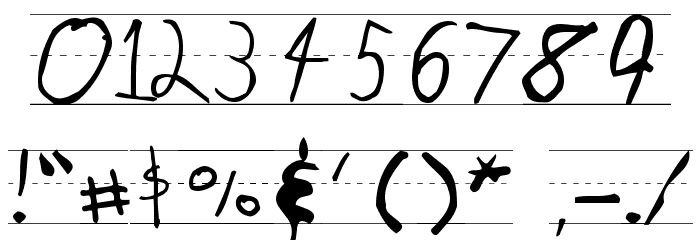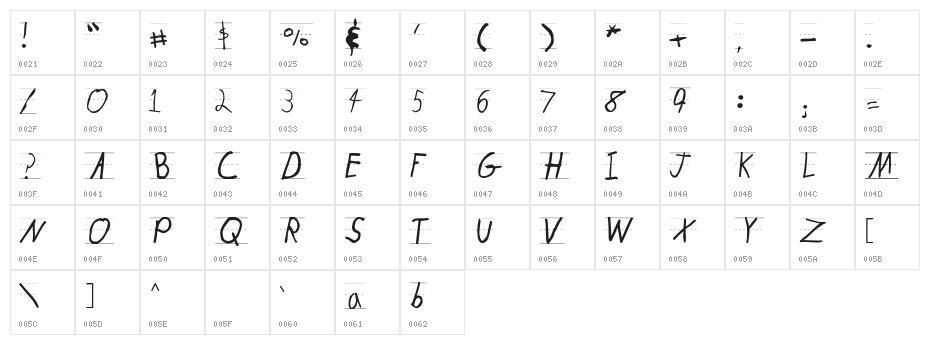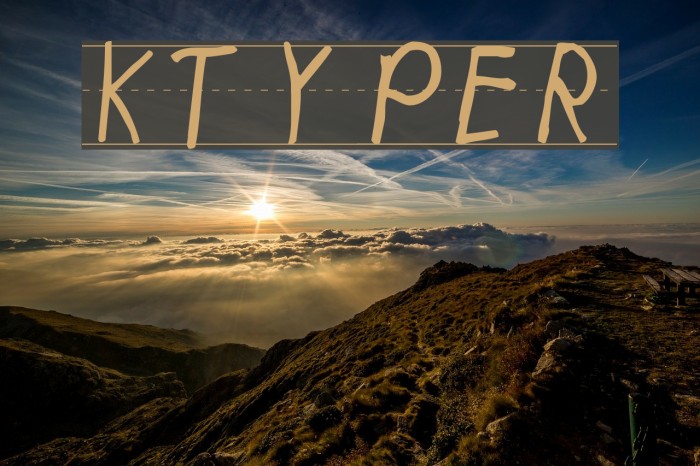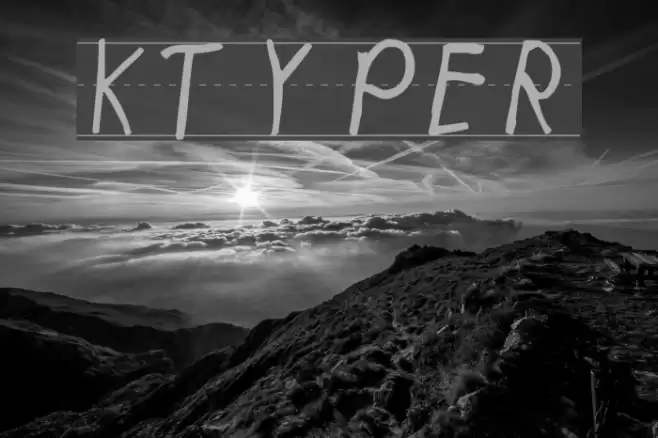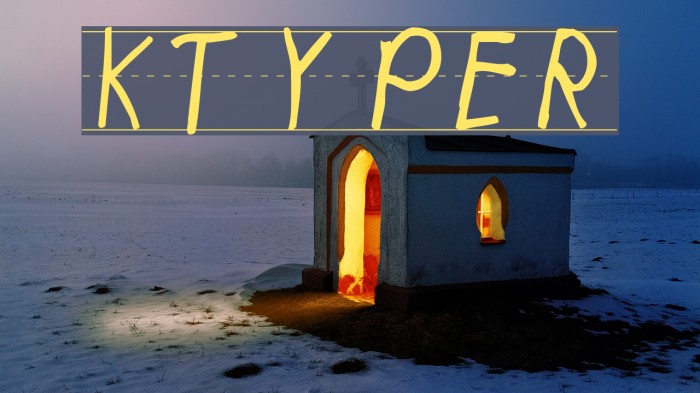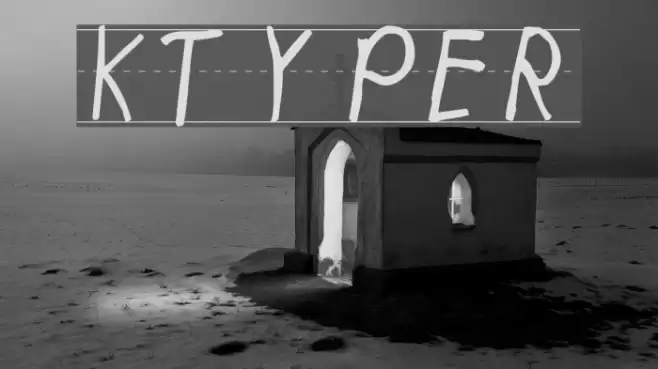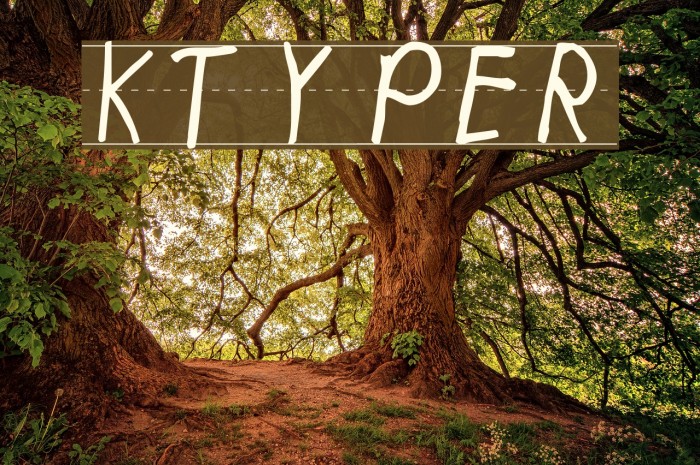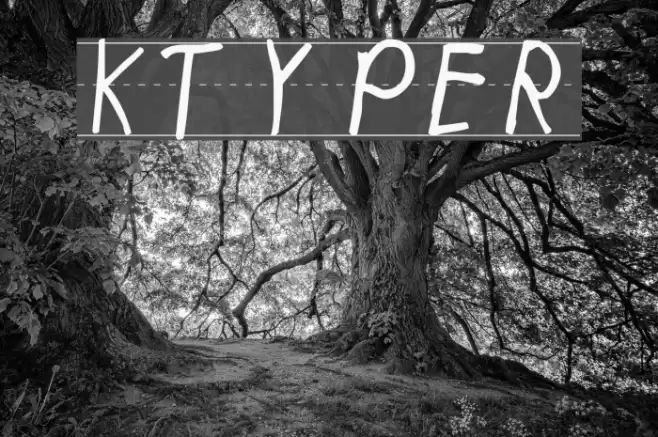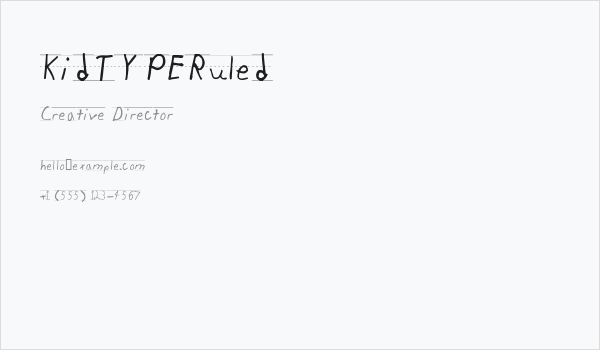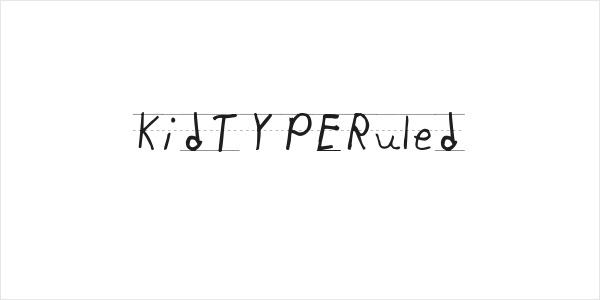
KidTYPERuled Font
KidTYPERuled Description
This playful and whimsical font mimics the style of a child's handwriting, featuring irregular strokes and a casual, informal appearance. The letters are slightly slanted, with varying heights and widths, creating a dynamic and lively look. The uppercase and lowercase letters maintain a consistent style, with rounded edges and a hand-drawn feel. Numbers and special characters follow the same playful aesthetic, making the font suitable for projects that require a fun and approachable tone. The overall design is reminiscent of school handwriting exercises, with a sense of spontaneity and creativity.
| Overall Style | Playful, Informal |
| Proposed Projects | Ideal for children's books, educational materials, playful branding, and creative invitations. |